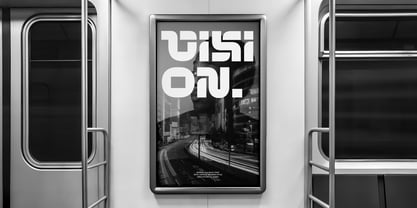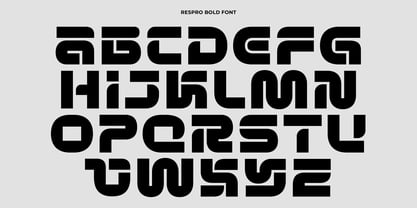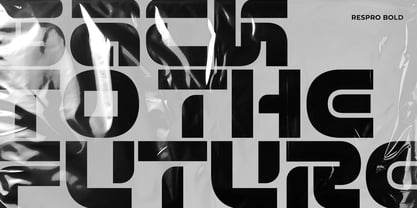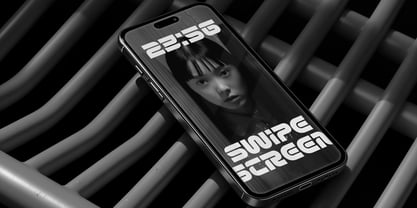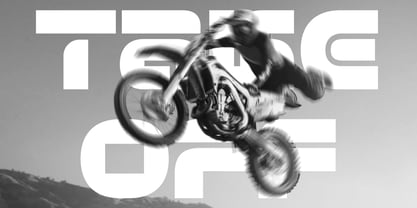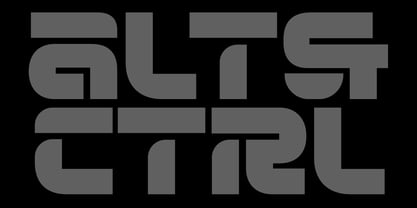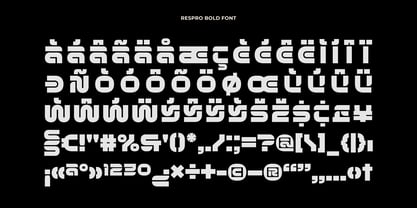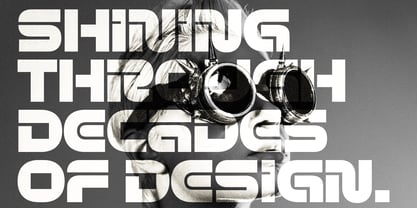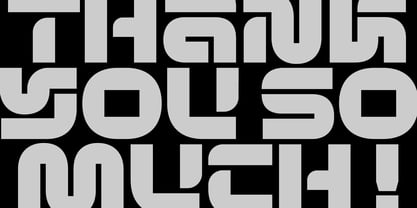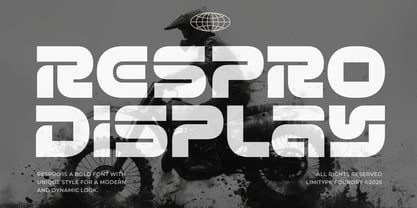
Respro
von limitype
Die Schriftfamilie Respro wurde von Muhammad Muammar, Furqan Sudirman entworfen und von limitype veröffentlicht. Respro enthält 1 Stile.
Respro is a bold display font featuring a dynamic, rounded style that gives it a modern and professional look. Unique style details on several characters add personality and make it stand out. Perfect for modern and futuristic design, eye catching titles or headlines that need to be bold, dynamic, and modern look. Respro available with: - Allcaps - Number - Symbol - Multilingual
Designer: Muhammad Muammar, Furqan Sudirman
Herausgeber: limitype
Foundry: limitype